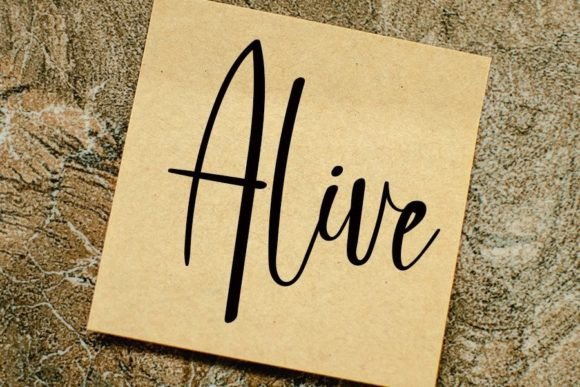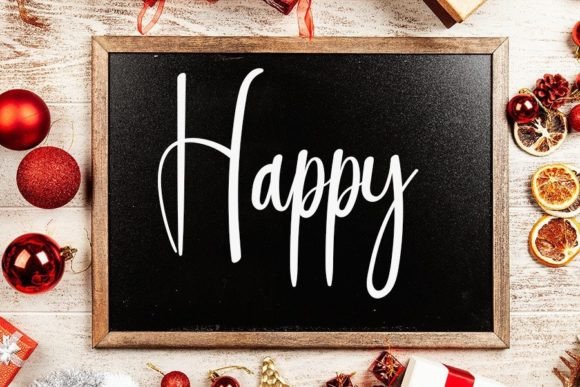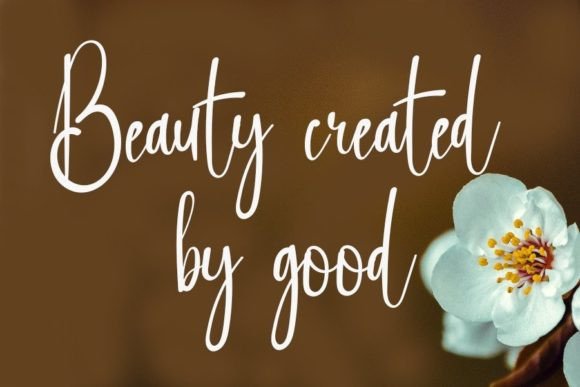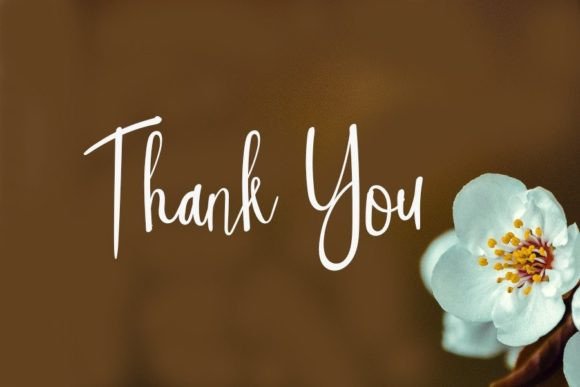
The Story Font
About The Story Font
Welcome to the enchanting world of The Story, a friendly handwritten font meticulously crafted to become an absolute favorite. With a delicate balance of classy calligraphic influences and a contemporary, fresh feel, The Story is poised to infuse your creative projects with a touch of magic, making them truly outstanding.
The warm and approachable nature of The Story makes it a versatile choice for a myriad of design applications. Its handwritten charm imparts a personal touch to your text, creating an inviting and engaging visual experience for your audience.
Introduce The Story into your creative ventures, and witness how it transforms them into standout pieces of design. Whether you’re working on branding, invitations, social media graphics, or any other creative endeavor, The Story brings a unique personality that sets your work apart.
For branding purposes, The Story becomes a valuable asset in crafting a visual identity that exudes both class and approachability. Its contemporary feel ensures that your brand communicates a fresh and modern image, resonating with your target audience.
Invitations take on a special allure with The Story, as its friendly and handwritten style sets the perfect tone for celebrations and events. Whether it’s wedding invitations or party announcements, this font adds a delightful touch to your designs.
In the realm of social media graphics, The Story becomes a powerful tool for creating eye-catching and shareable content. Its fresh and contemporary feel ensures that your messages are communicated with a touch of authenticity and friendliness.
Maintaining its calligraphic influences, The Story is suitable for projects that call for a touch of elegance. Whether you’re designing elegant stationery, greeting cards, or sophisticated event materials, this font adds a classy yet friendly vibe.
Embrace the captivating qualities of The Story as it becomes a cherished companion in your creative journey. Let its friendly handwritten charm elevate your designs, making them not only visually appealing but also approachable and unforgettable.